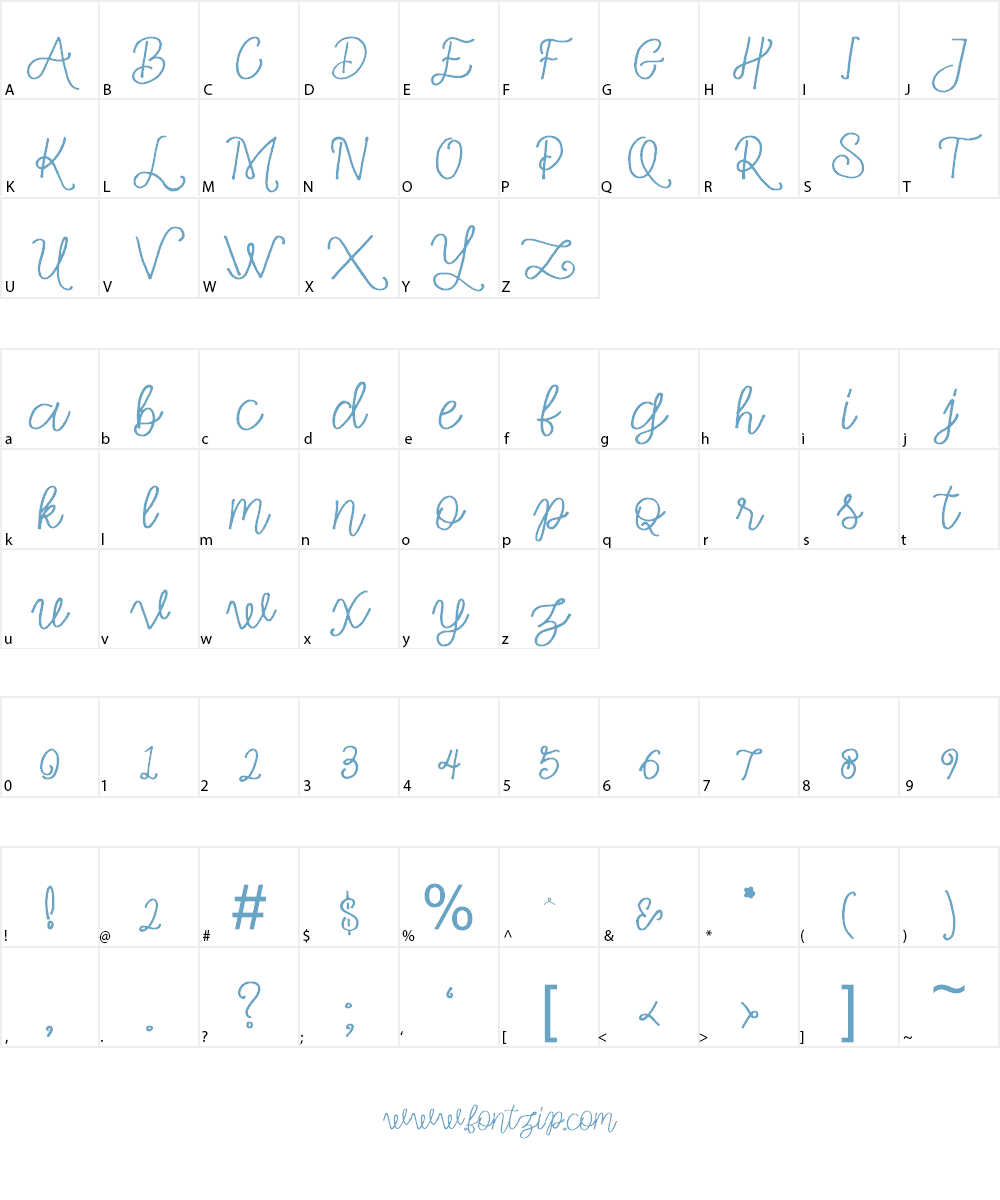
The Simple Swirl is a handwritten font with simple swirls on each character.
Simple swirl comes with uppercase, lowercase, standard punctuation, and numbers.
Simple Swirl has variety of unique handmade-look outcomes that can be combined together with a large range of designs.